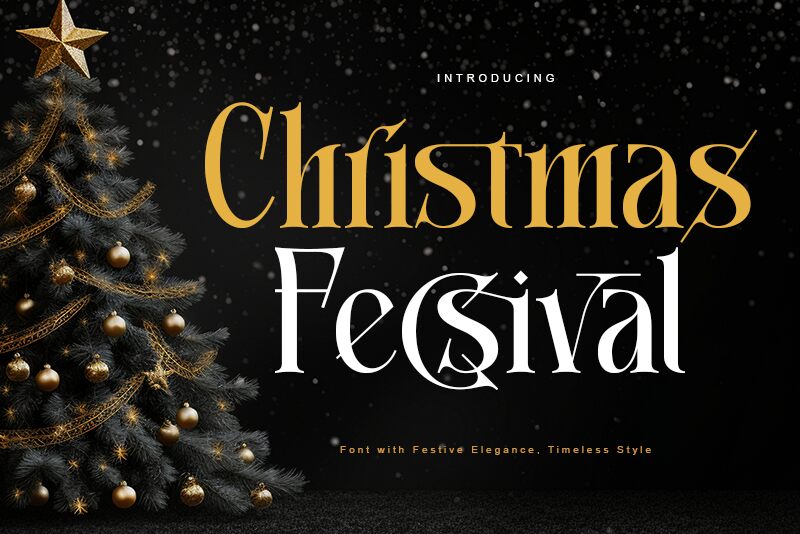
Christmas Fecsival font by Letterara is a free font designed to instantly elicit harmonious feelings of joy and excitement in audience members. Designed for the holidays, this typeface boasts a sophisticated and elegant appearance that is dynamic and flowing, making it a beautifully ornate asset to have.